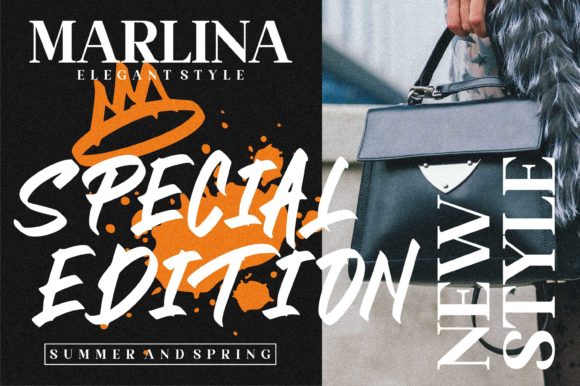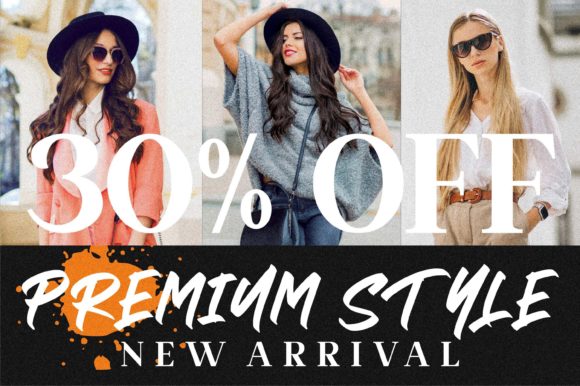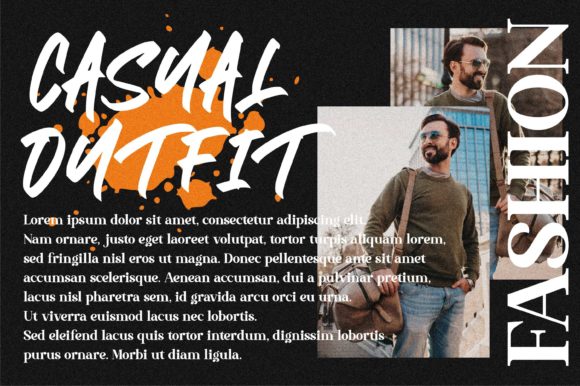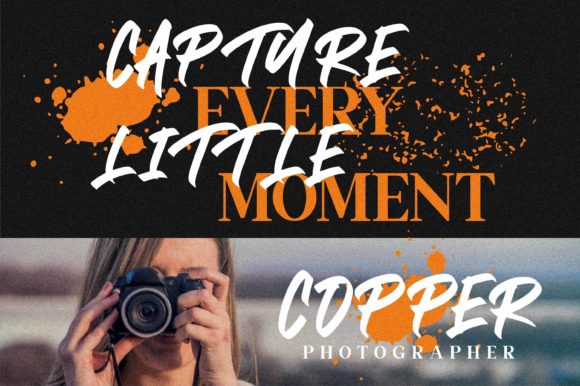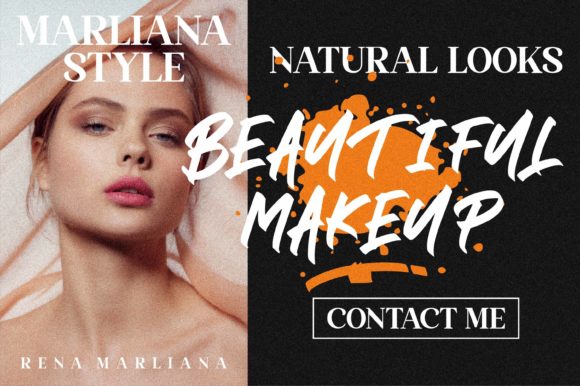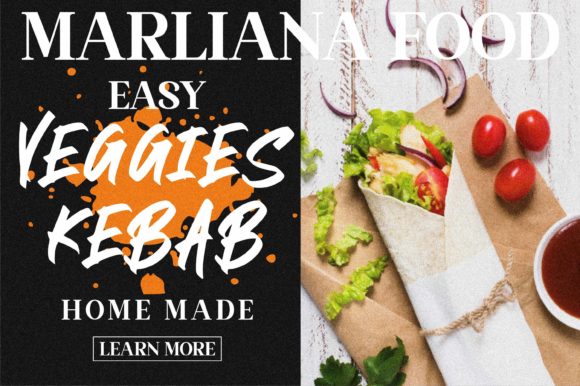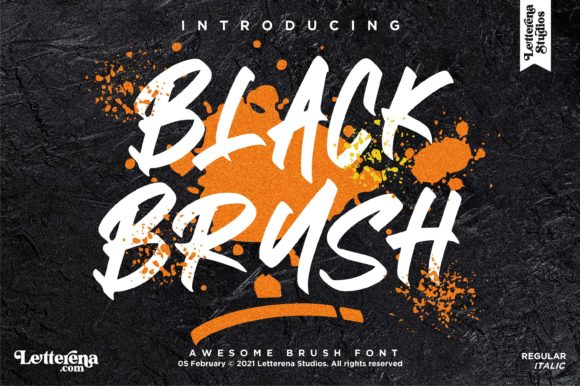
Introducing Black Brush Font: The Ultimate Urban Display Font
Are you tired of using the same old fonts in your designs? Look no further than Black Brush Font, a bold, brushed display font that’s perfect for adding a touch of urban style to your projects. With its trendy and casual vibe, this font is ideal for a wide range of designs, from posters and flyers to social media graphics and craft projects.
What is Black Brush Font?
Black Brush Font is a unique and eye-catching font that’s designed to make a statement. Its bold, brushed texture gives it a rough-and-tumble feel that’s perfect for creating urban-inspired designs. The font is characterized by its thick, expressive lines and subtle imperfections, which give it a hand-crafted feel that’s perfect for designs that need a personal touch.
Key Features of Black Brush Font
• Bold and Brushed Texture: The font’s bold, brushed texture gives it a unique and eye-catching appearance that’s perfect for making a statement.
• Urban Style: The font’s urban style makes it perfect for designs that need a trendy and casual vibe.
• Versatile: Black Brush Font is versatile and can be used for a wide range of designs, from posters and flyers to social media graphics and craft projects.
• Easy to Read: Despite its bold and brushed texture, the font is easy to read, even at smaller sizes.
Uses for Black Brush Font
Black Brush Font is perfect for a wide range of designs, including:
• Posters and Flyers: The font’s bold and eye-catching appearance makes it perfect for posters and flyers that need to grab attention.
• Social Media Graphics: The font’s urban style and trendy vibe make it perfect for social media graphics, such as Instagram posts and Facebook headers.
• Craft Projects: The font’s hand-crafted feel makes it perfect for craft projects, such as handmade cards and scrapbooking.
• Logos and Branding: The font’s unique and memorable appearance makes it perfect for logos and branding projects that need to stand out.
Tips for Using Black Brush Font
Here are a few tips for using Black Brush Font in your designs:
• Use it as a Statement Font: Black Brush Font is perfect for making a statement, so use it sparingly to add emphasis to your designs.
• Pair it with a Simple Font: The font’s bold and brushed texture can be overwhelming, so pair it with a simple font to create contrast.
• Experiment with Colors: The font’s urban style and trendy vibe make it perfect for experimenting with bold and bright colors.
Black Brush Font is a bold, brushed display font that’s perfect for adding a touch of urban style to your designs. With its trendy and casual vibe, this font is ideal for a wide range of designs, from posters and flyers to social media graphics and craft projects. Whether you’re a designer or a crafter, Black Brush Font is a great addition to your font library.